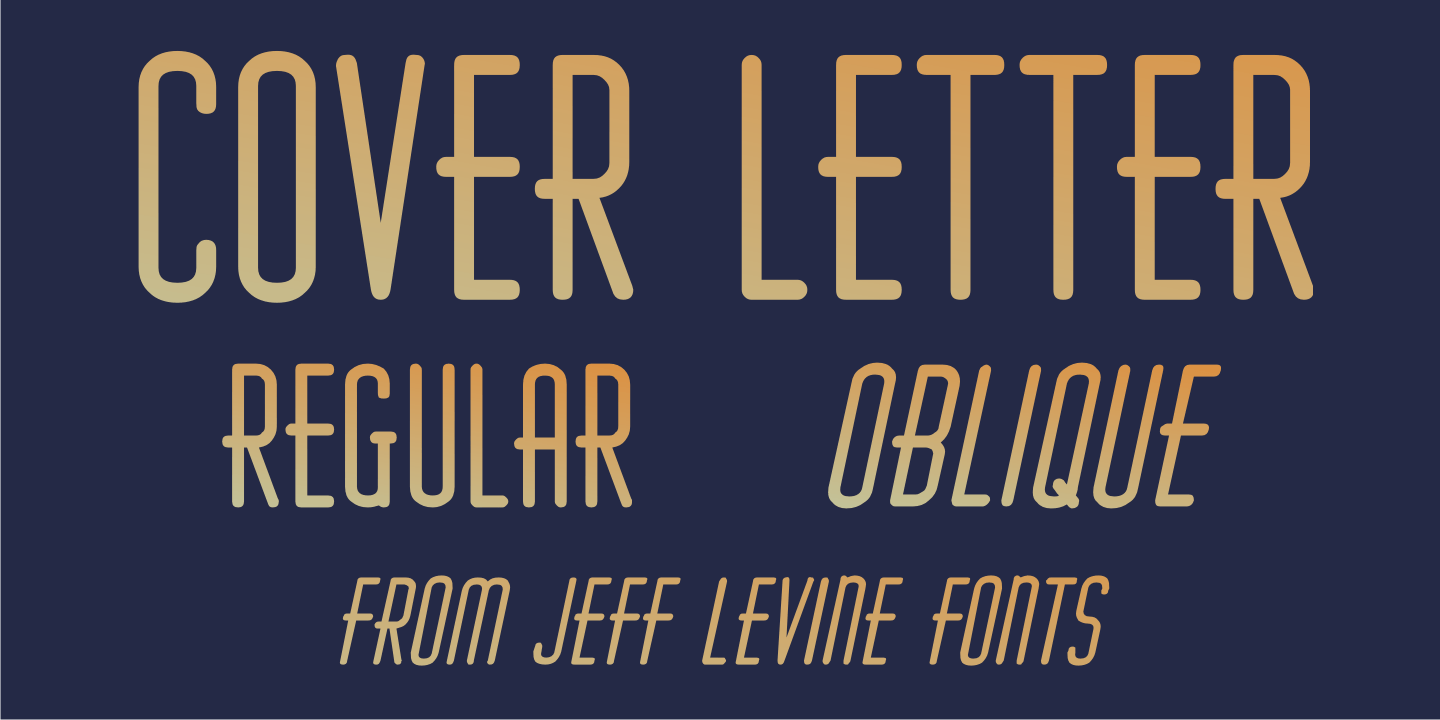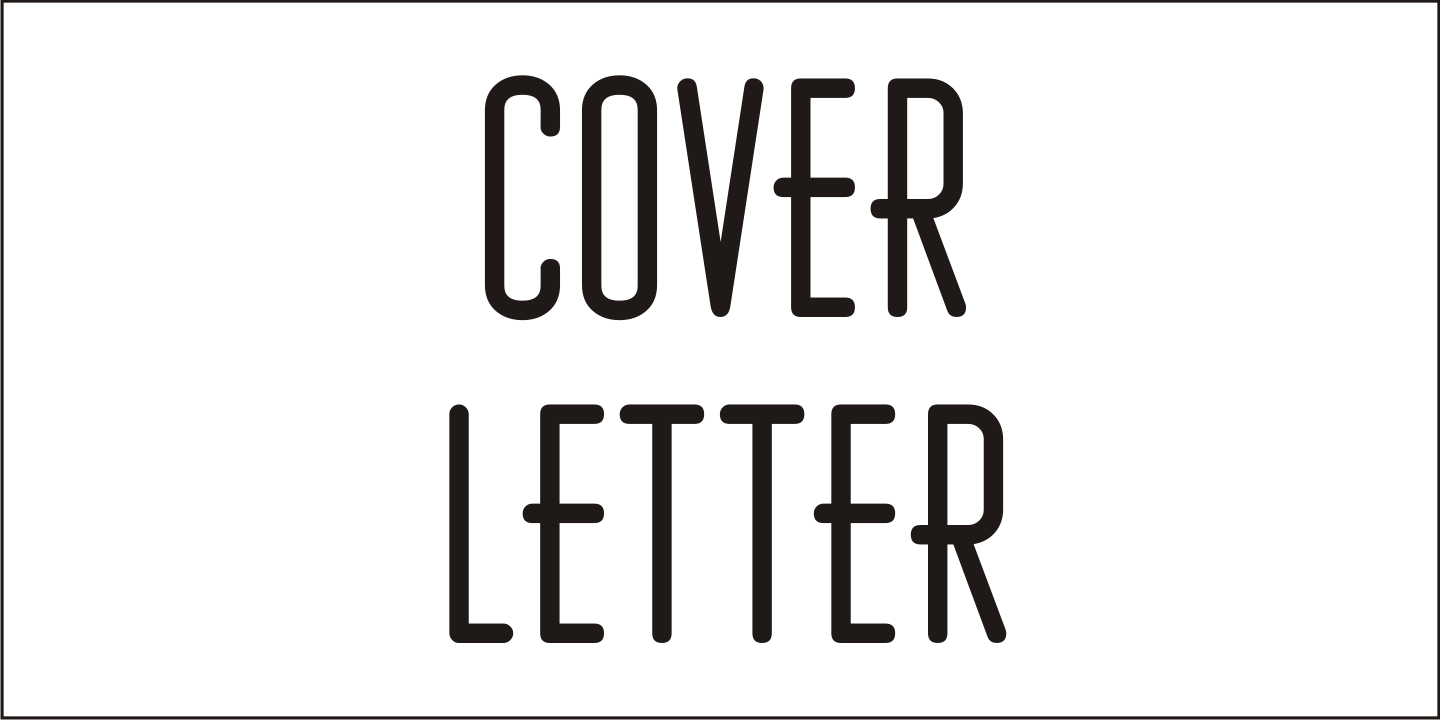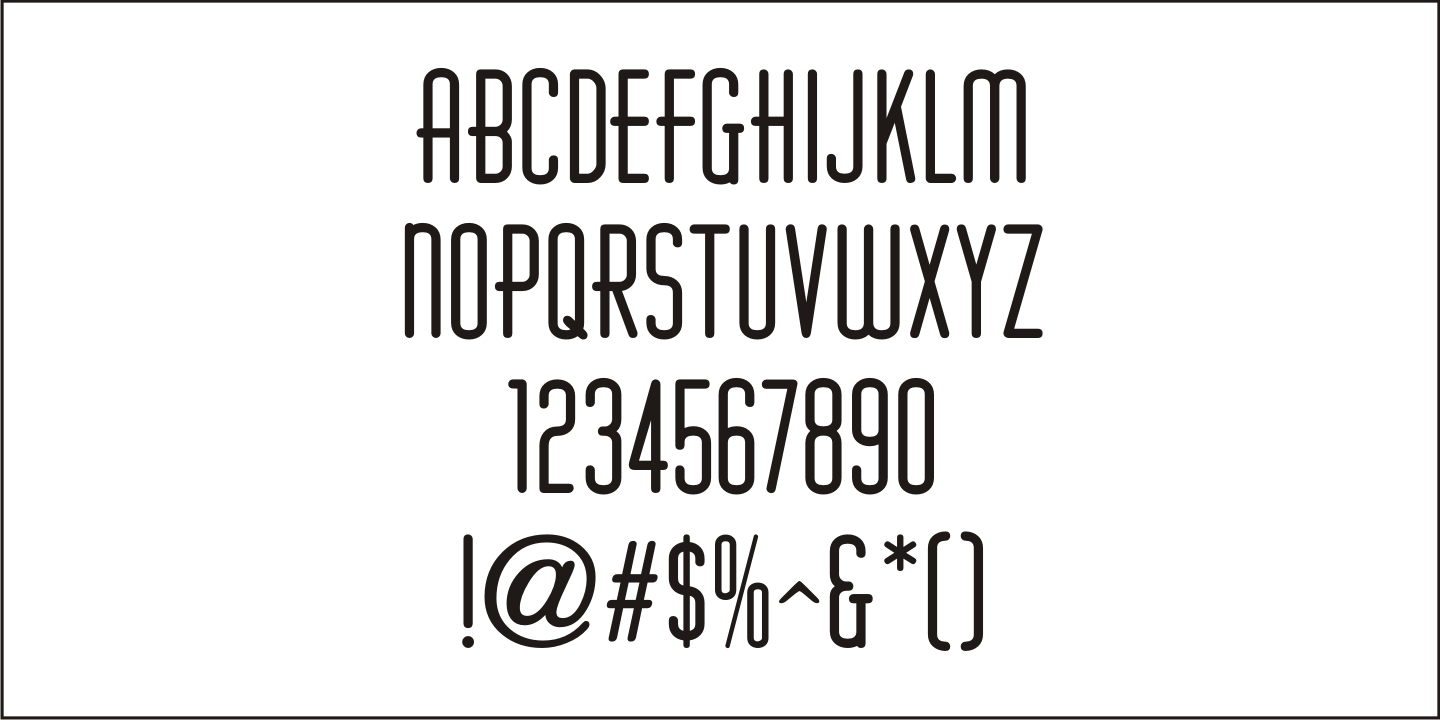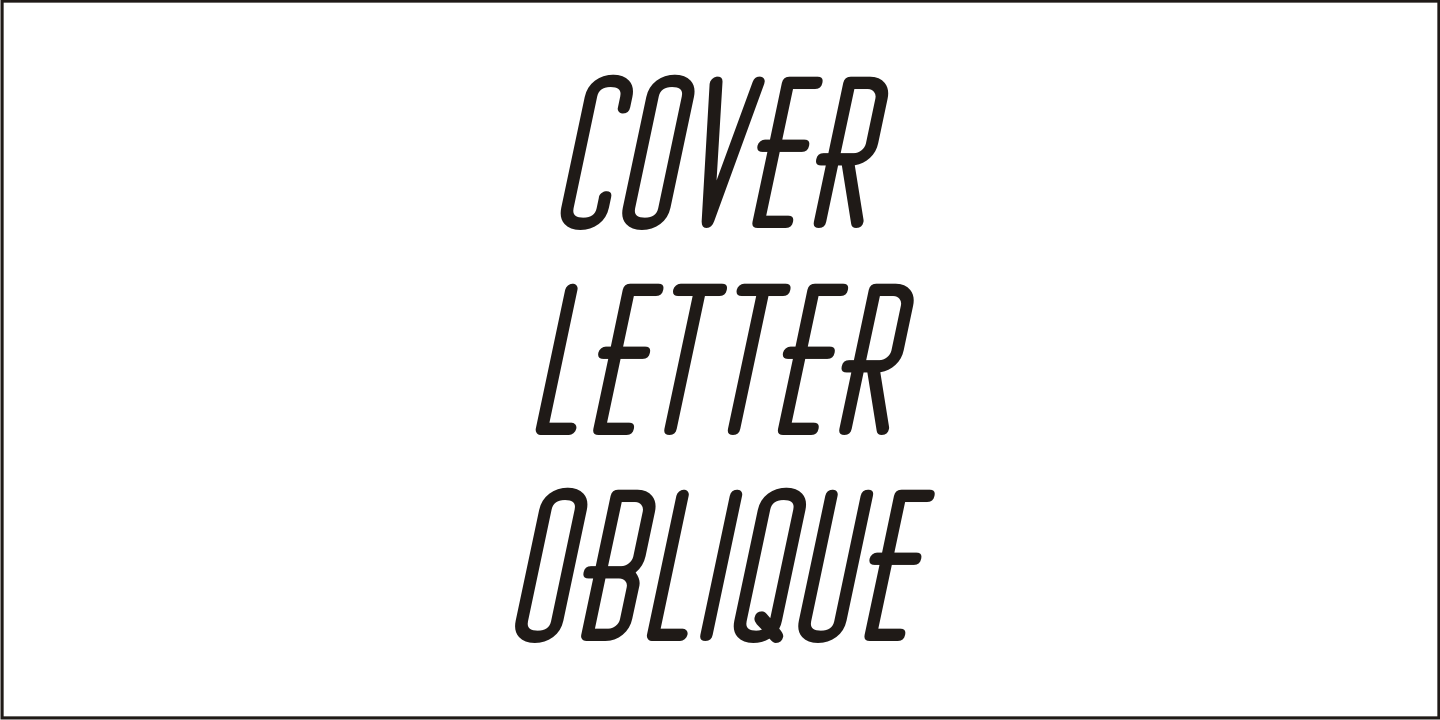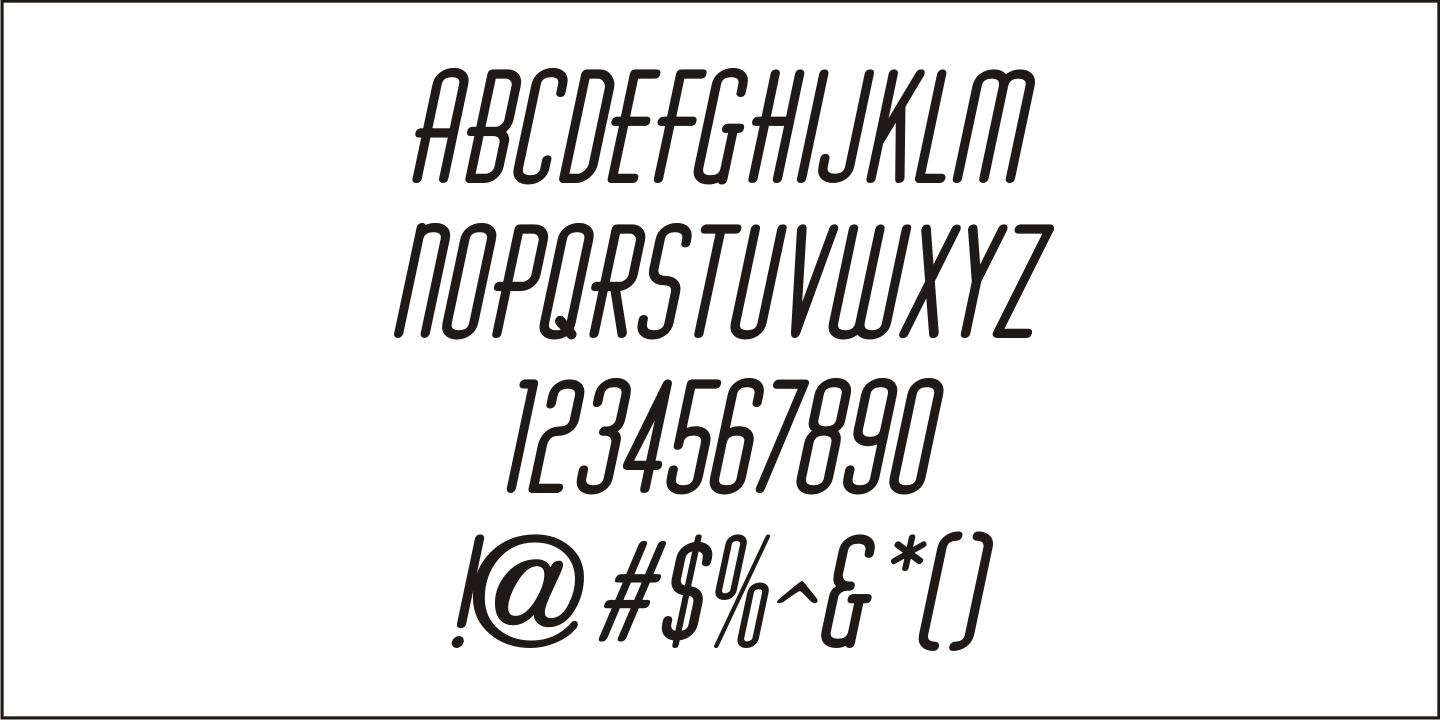
Cover Letter
The handmade title on the cover for the 1939 edition of 'A Wand'ring Minstrel” [from Gilbert and Sullivan's 'The Mikado”] was rendered with a round nib lettering pen in an Art Deco style.
This type design is now available as Cover Letter JNL in both regular and oblique versions.
However, the font's name is a bit of a pun, as it has nothing to do with covers letters, but rather the lettering found on the cover of the sheet music.